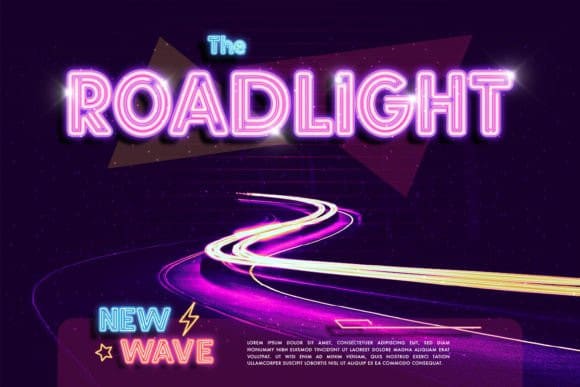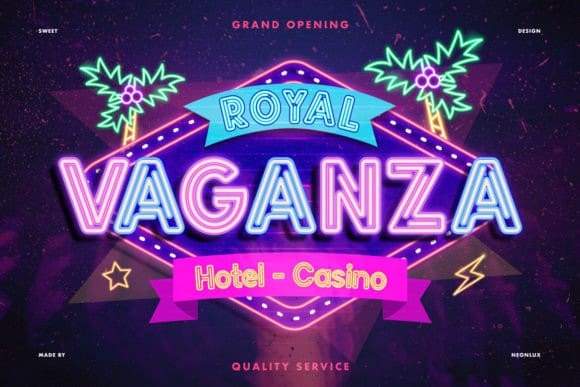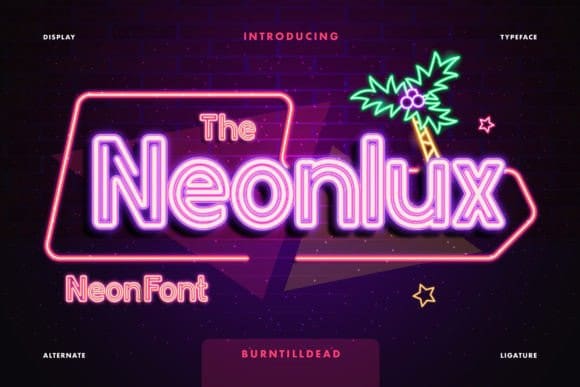
Neonlux Display Font
Neonlux Display Font – This font have a way of making your design stand out with their touch of retro-futurism or just a splash of vibrant color to your visuals. Whether it’s for social media graphics, posters, or any creative project, a neon font can really make your message pop!